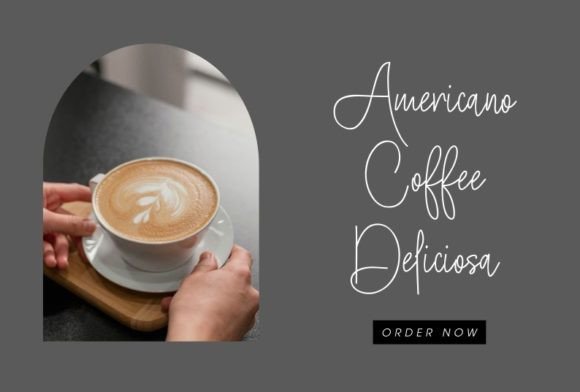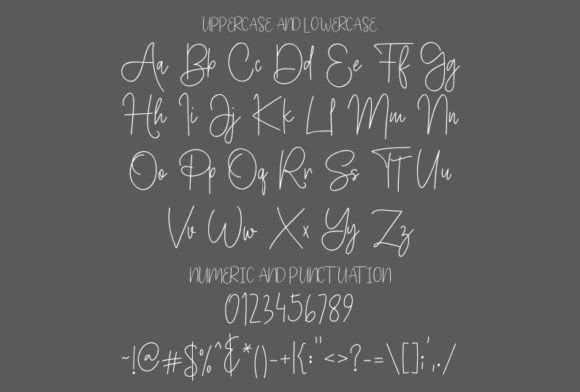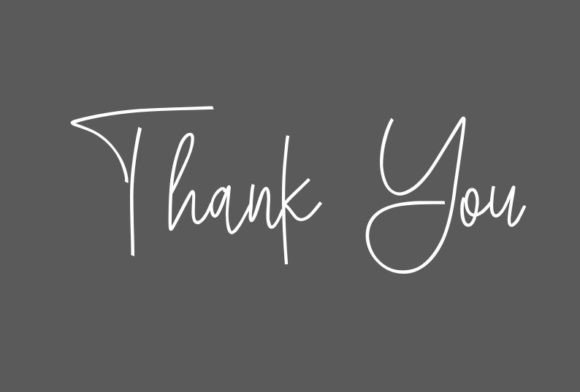
Introduction to Signature California Font Font
Fonts play a crucial role in design, and the Signature California Font font is a typeface that brings both character and versatility to any project. Whether you’re working on a branding project, a website, or a print design, the Signature California Font font offers a unique style that can elevate your work.
Signature California is a beautiful handwritten font ideal for logos, wedding stationery, photography watermarks, modern websites, and more.
Fall in love with its incredibly distinct and timeless style, and use it to create spectacular designs .
Key Features of Signature California Font Font
Why Choose Signature California Font Font?
The Signature California Font font is more than just a typeface – it’s a design tool that helps you communicate your message with style and clarity. Its unique character set and versatile design make it suitable for a wide range of applications, from elegant invitations to bold headlines.
With its carefully crafted letterforms and balanced proportions, the Signature California Font font ensures readability and visual appeal across all mediums.
What makes Signature California Font font special?
The Signature California Font font stands out with its unique design, exceptional readability, and versatility across various design applications.